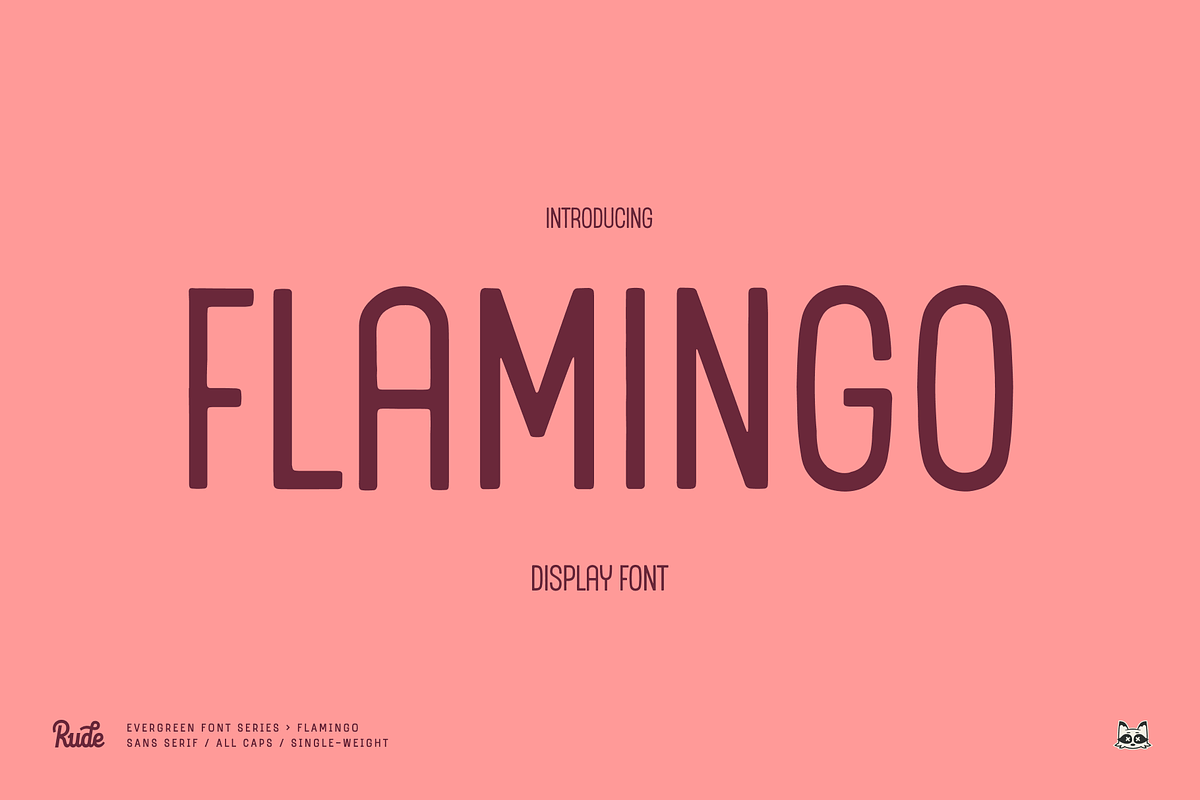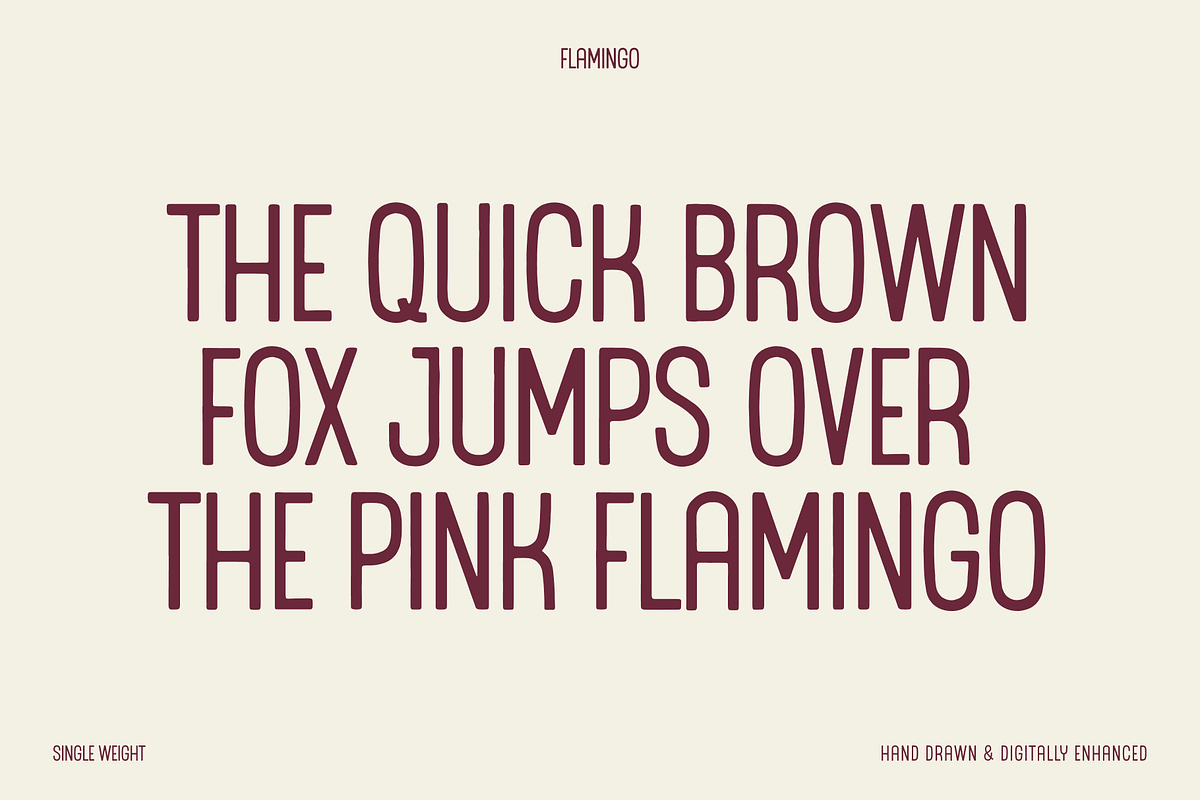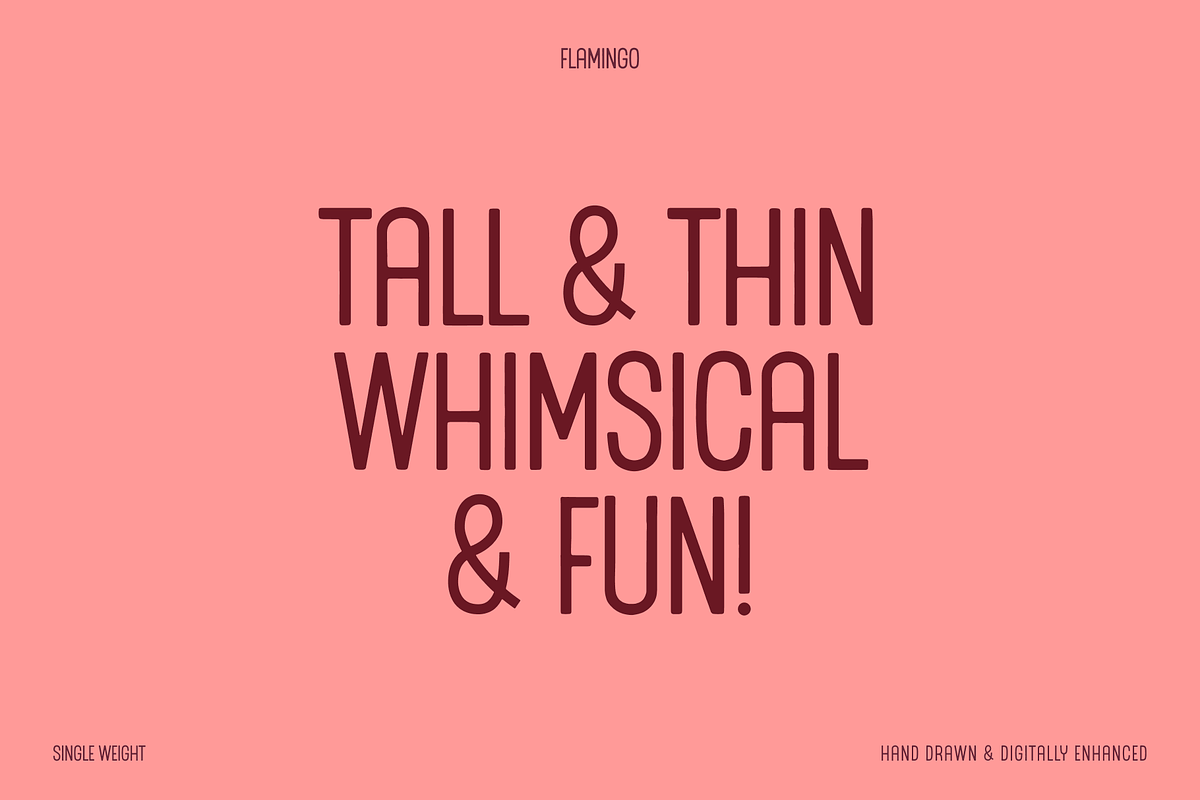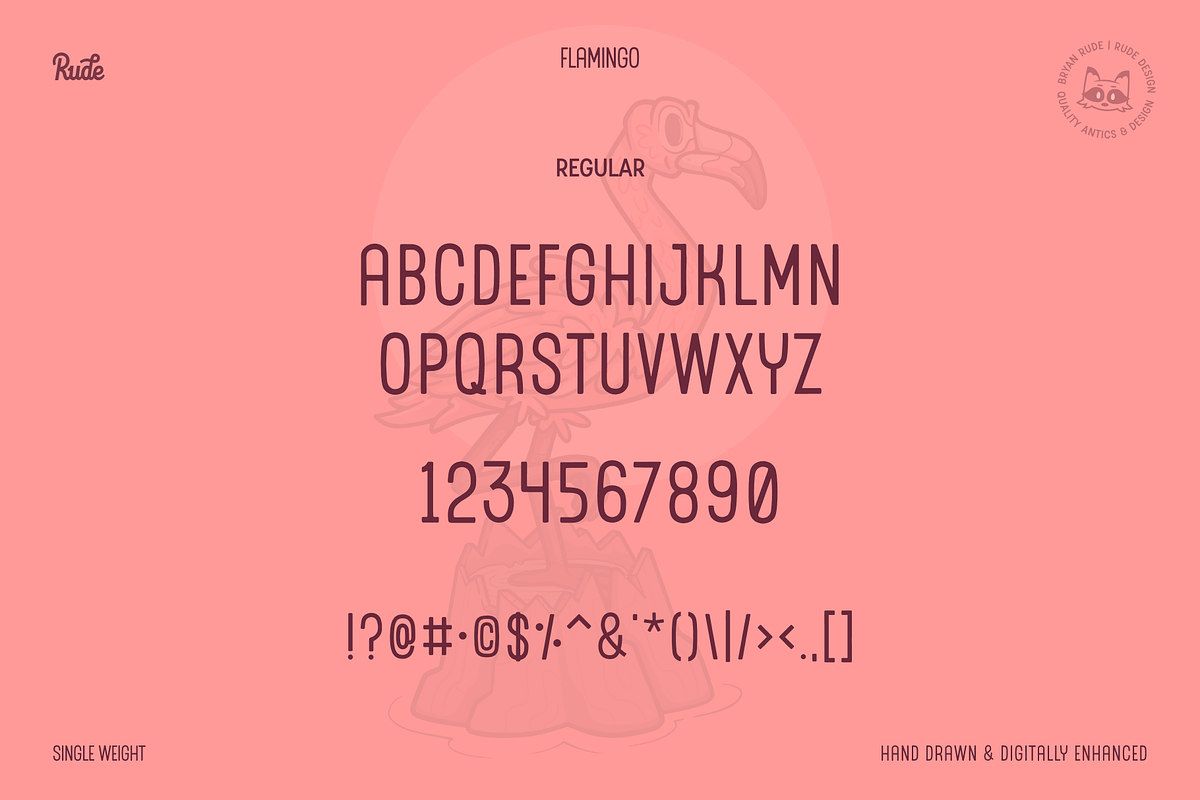
Flamingo Display Font
A tall, thin, and whimsical display font drawn entirely by hand and digitally mastered. Flamingo features one weight, all-caps, and basic special characters.